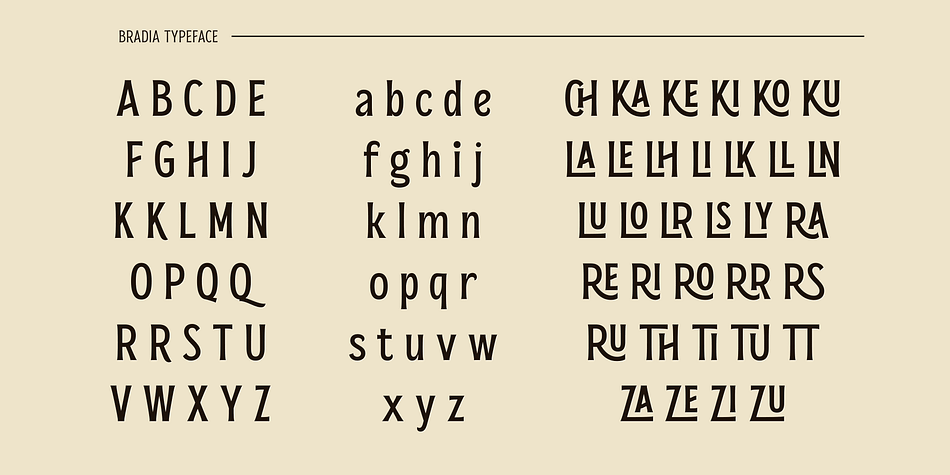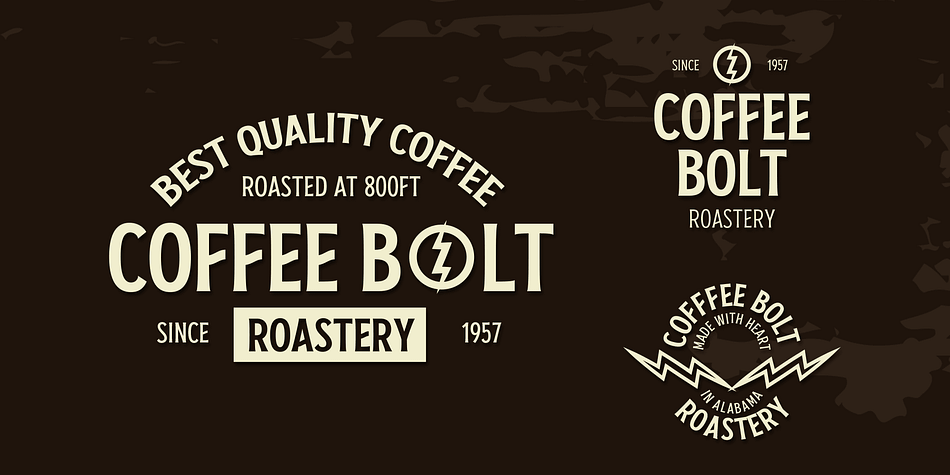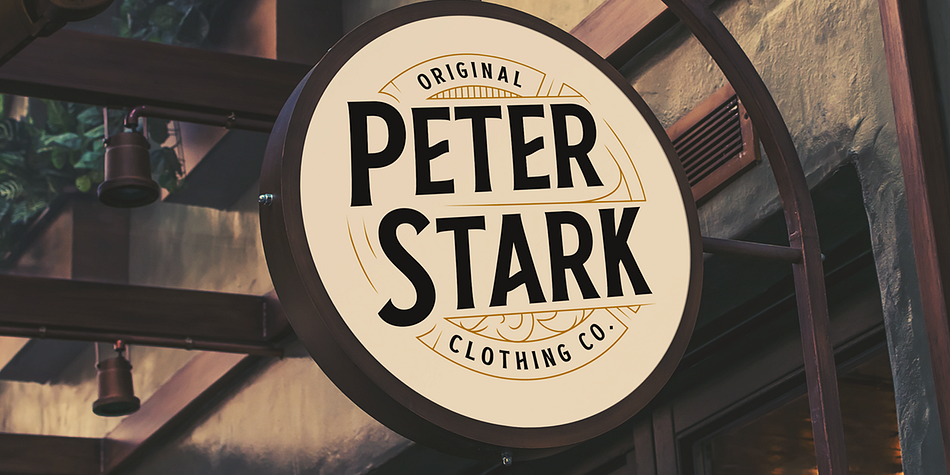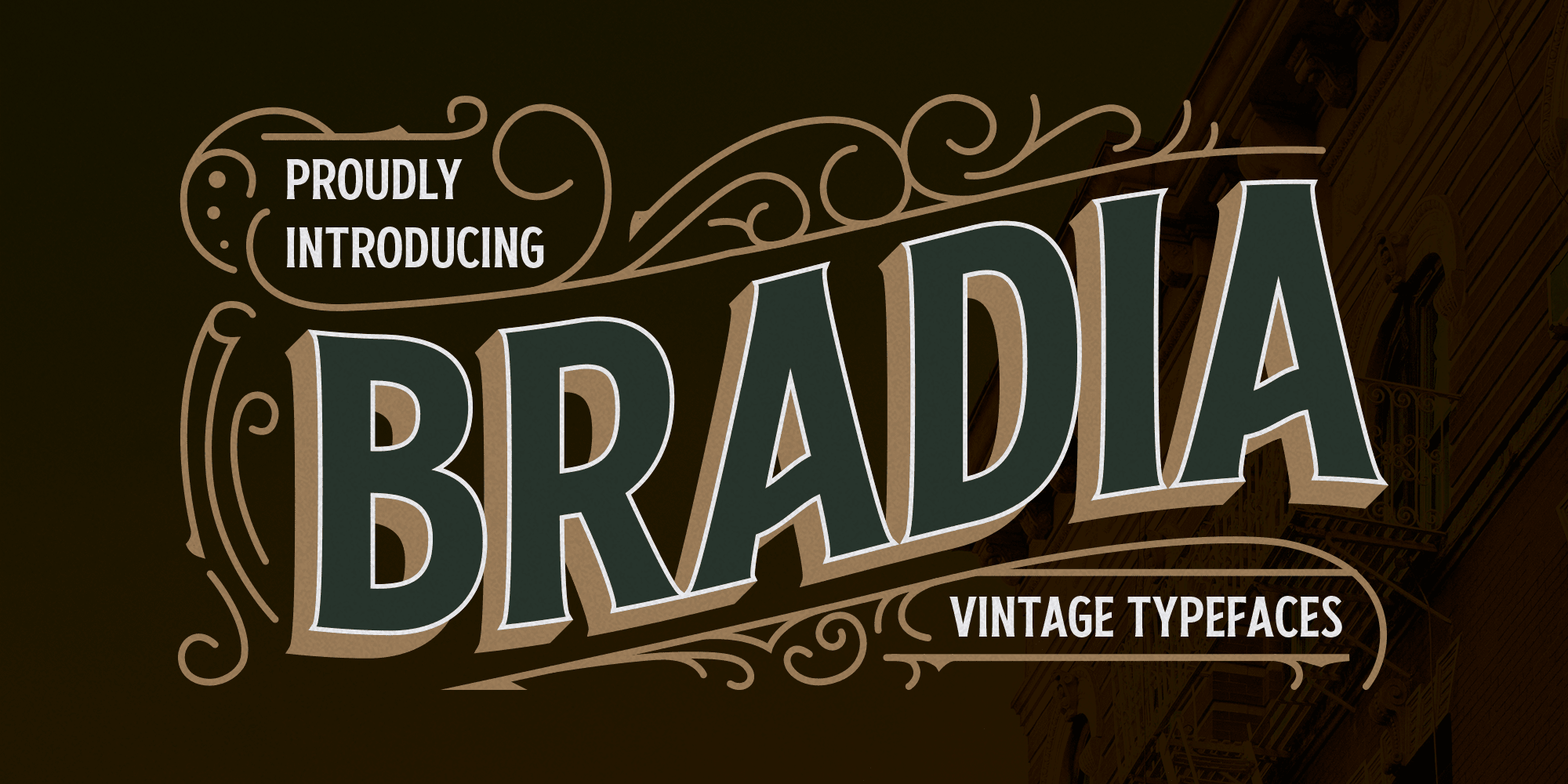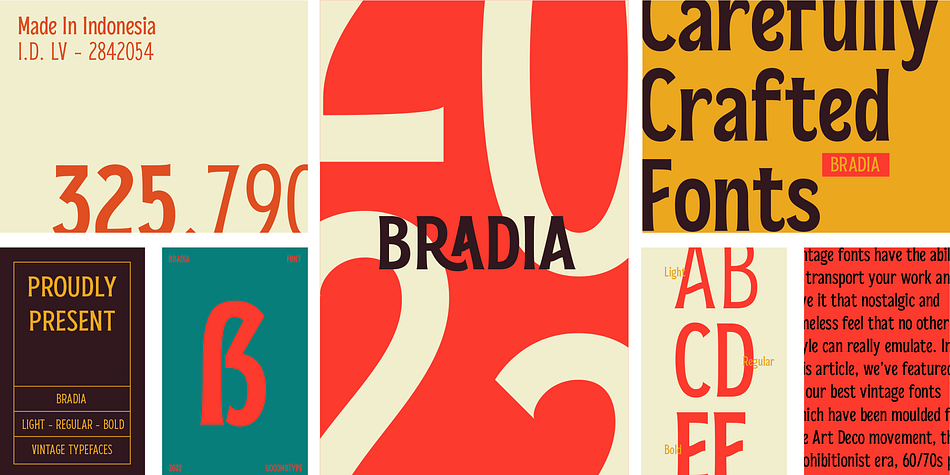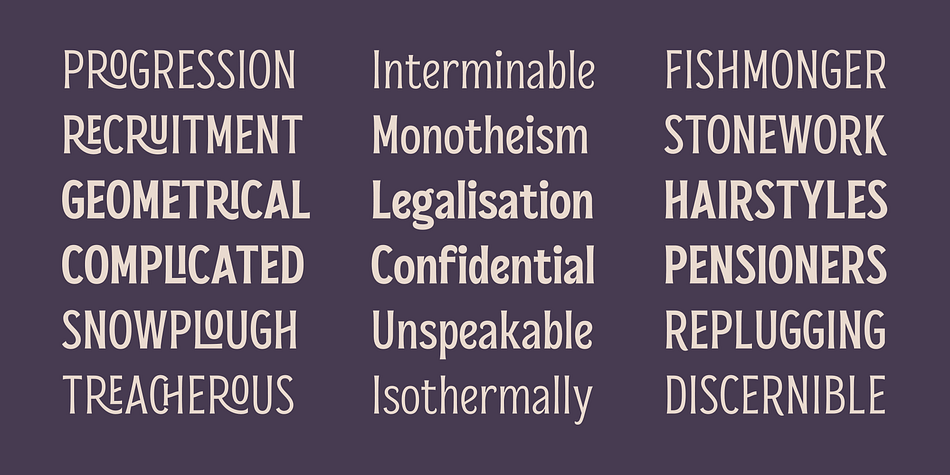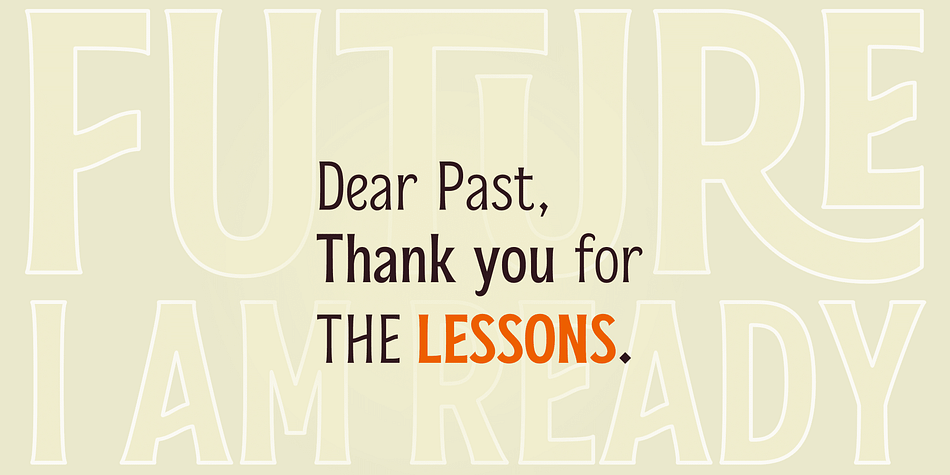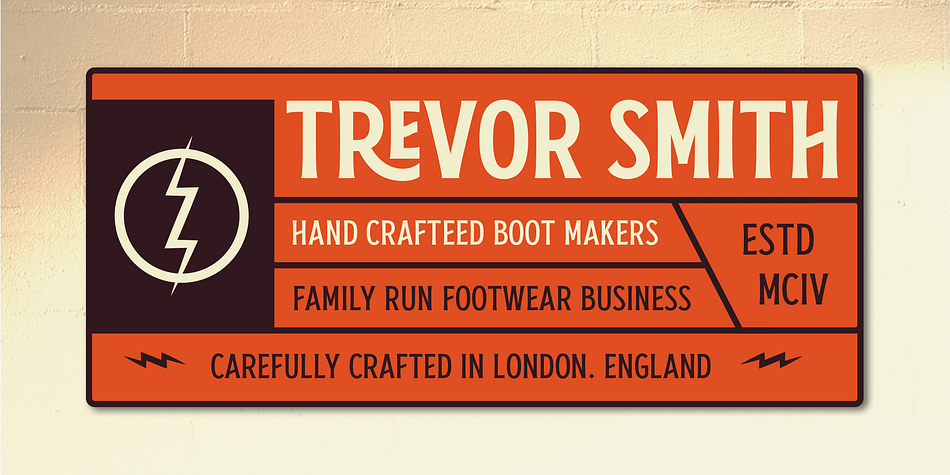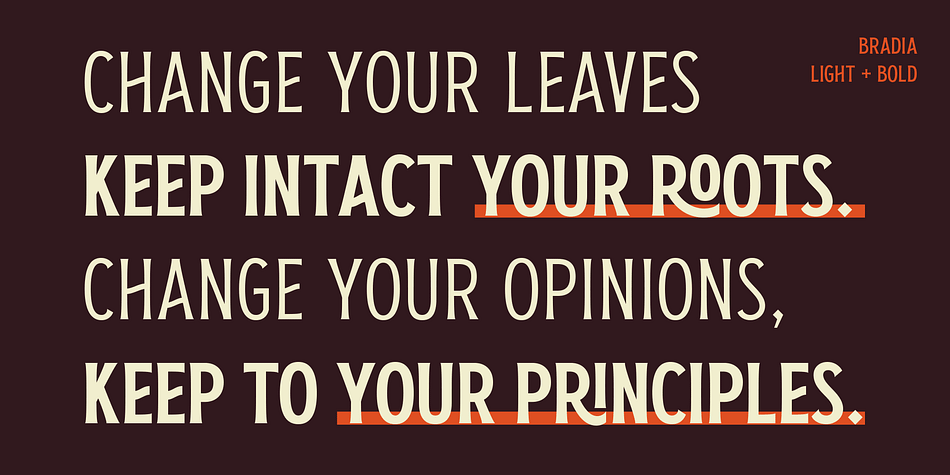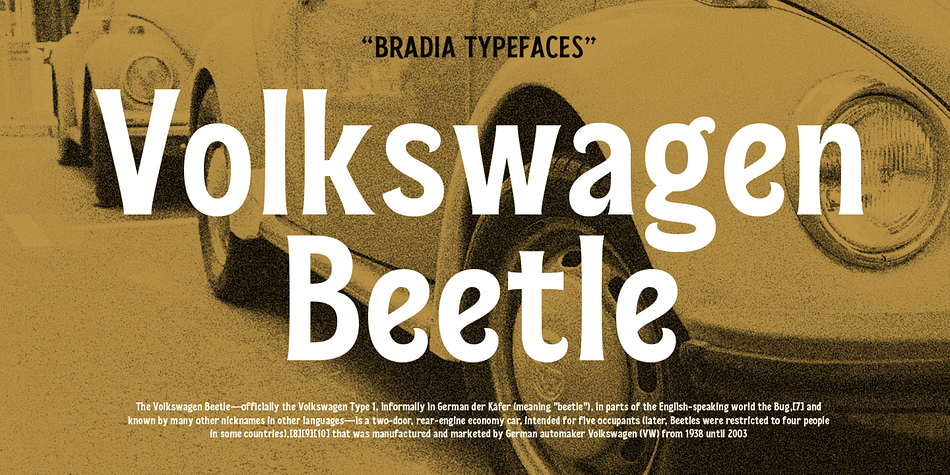
Bradia Vintage
Bradia Vintage is a display font family. This typeface has three styles and was published by Locomotype.
Going back in time, Locomotype presents Bradia, a classic style font that brings out a vintage and old-fashioned feel.
Available in three weights: Light, Regular and Bold. Discrectionary Ligatures feature is also included to enhance some letter pairs when applied to typographic designs.
Bradia is a stylish and versatile typeface perfectly suitable for a wide range of applications, especially headlines and short lines of text, posters, packaging, logotype, in both print and digital media.